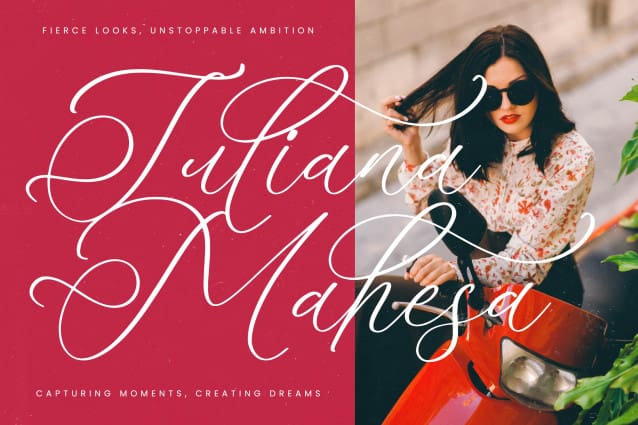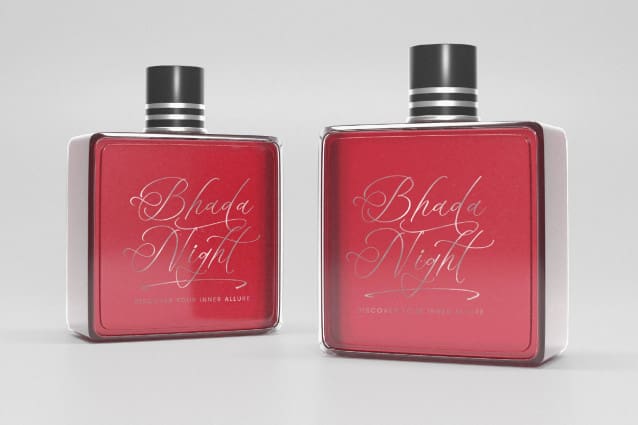
Beladin Skintics Font
Beladin Skintics Font – Modern Calligraphy Script , from Letterena, is a Luxury Script font, suitable for any projects such as: logos, branding projects, homeware designs, product packaging, mugs, quotes, posters, shopping bags, t-shirts, book covers, name card, invitation cards, greeting cards, label, photography, watermark, special events, and all your other luxury and beautiful projects that need a Luxury Script taste.